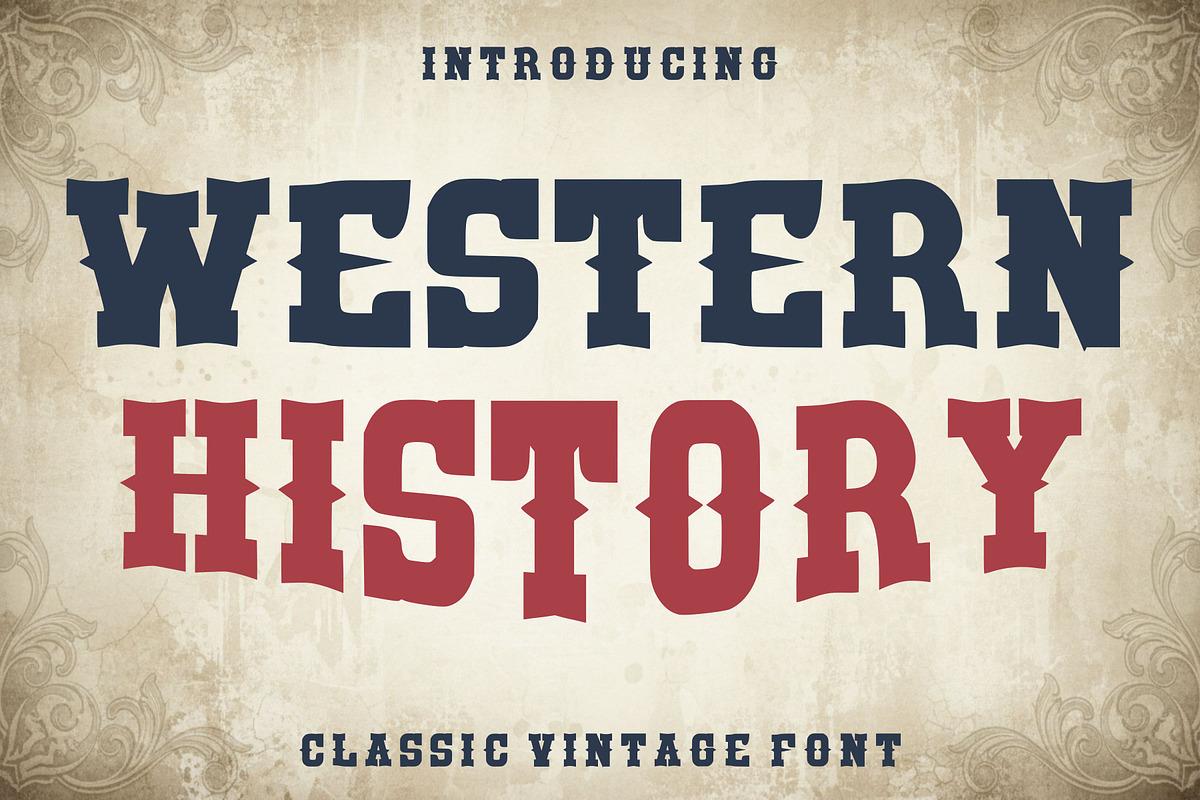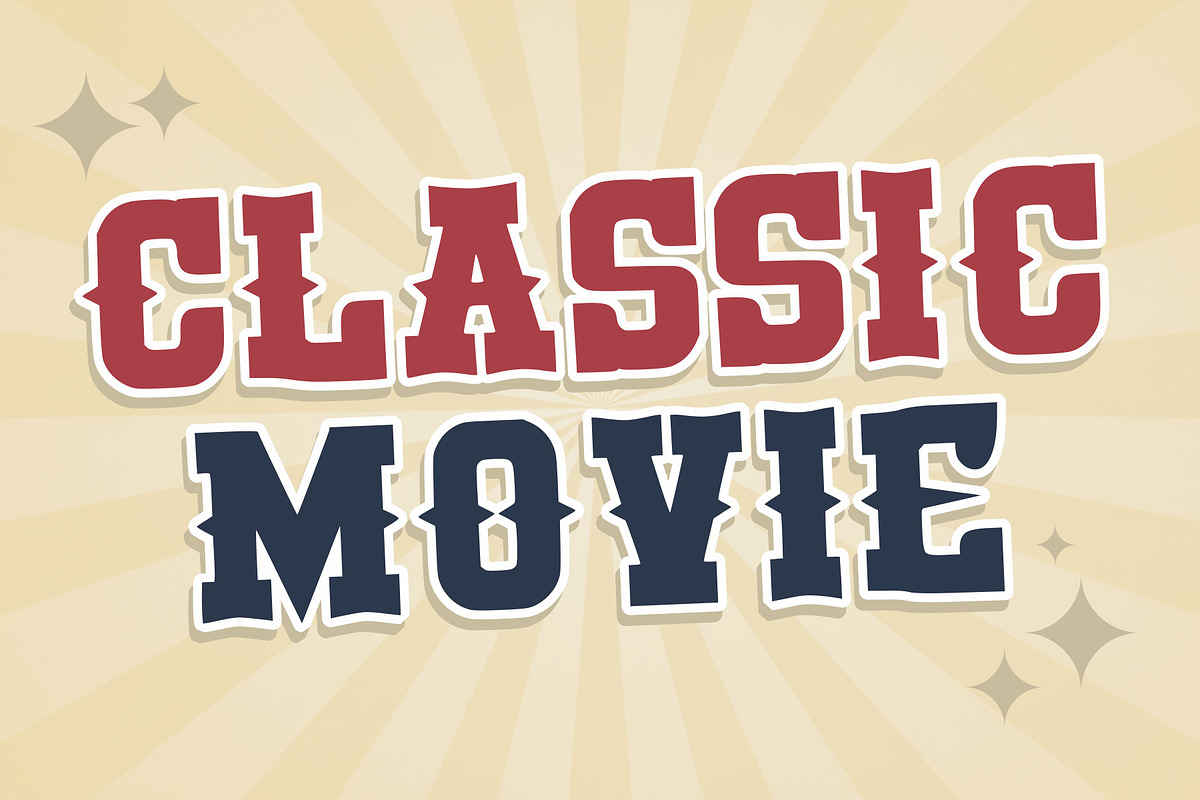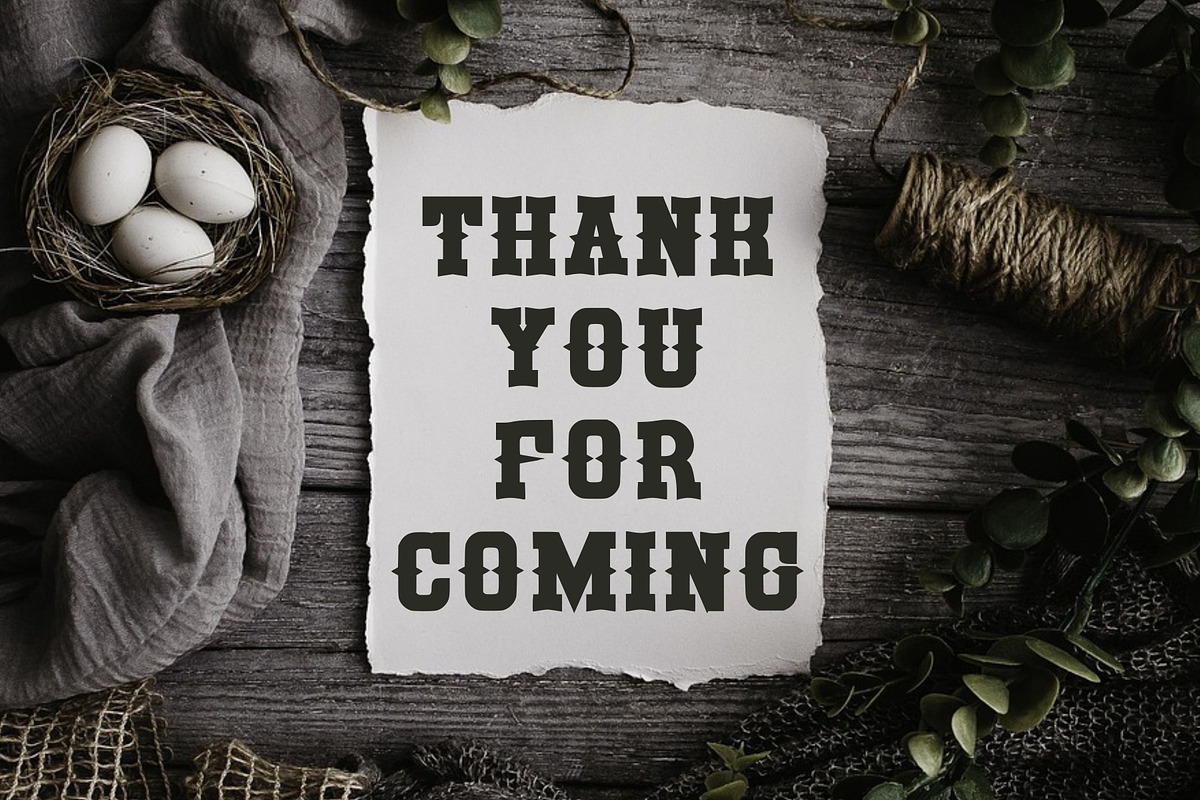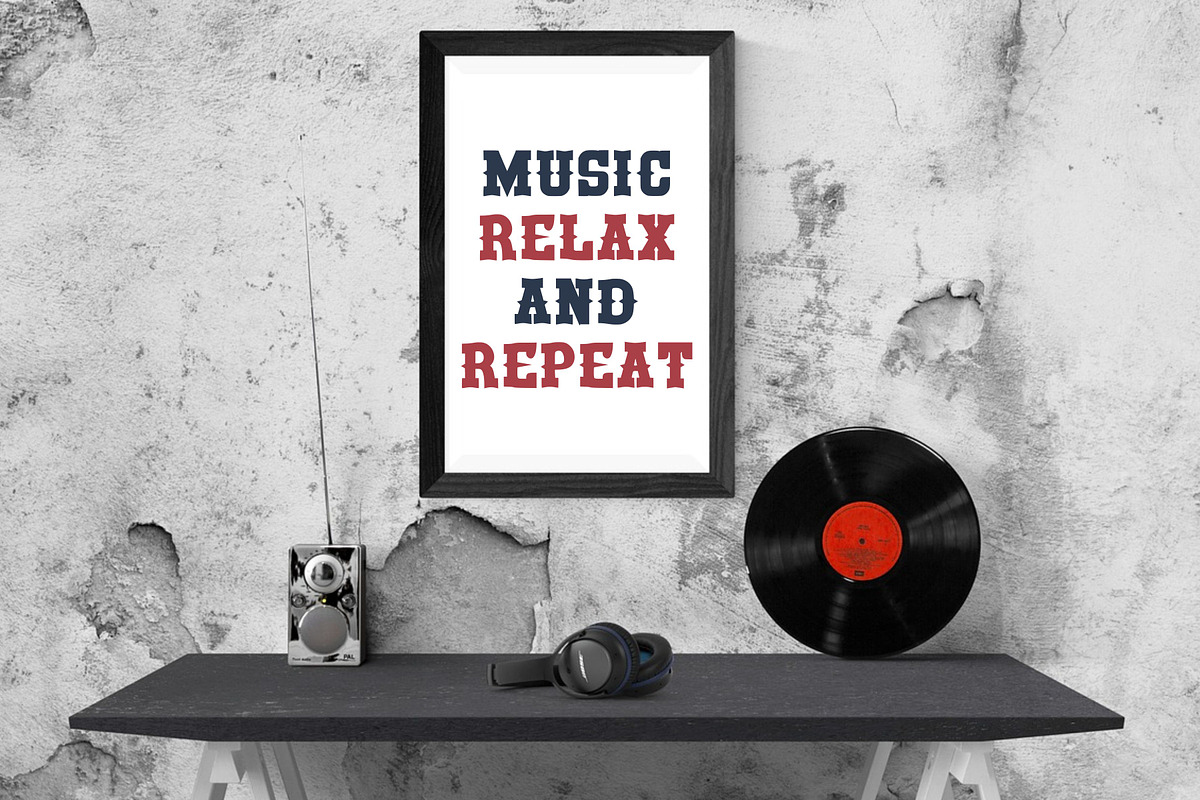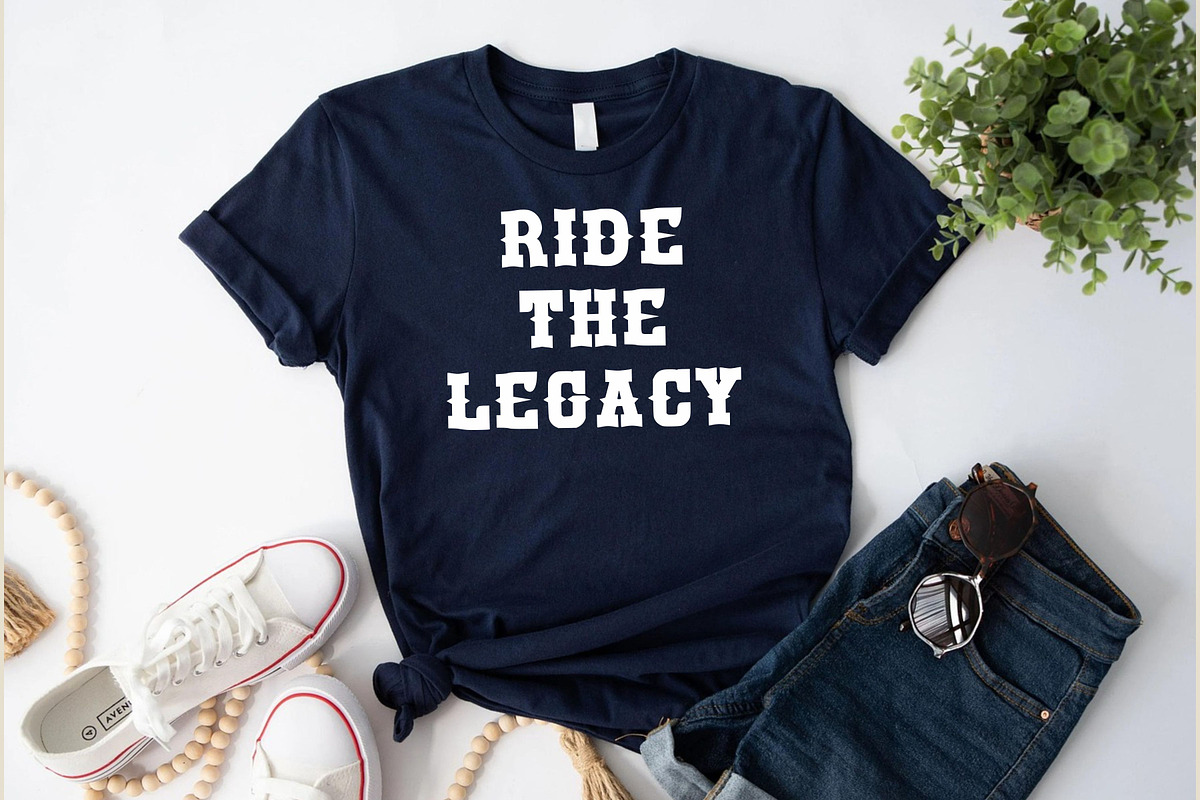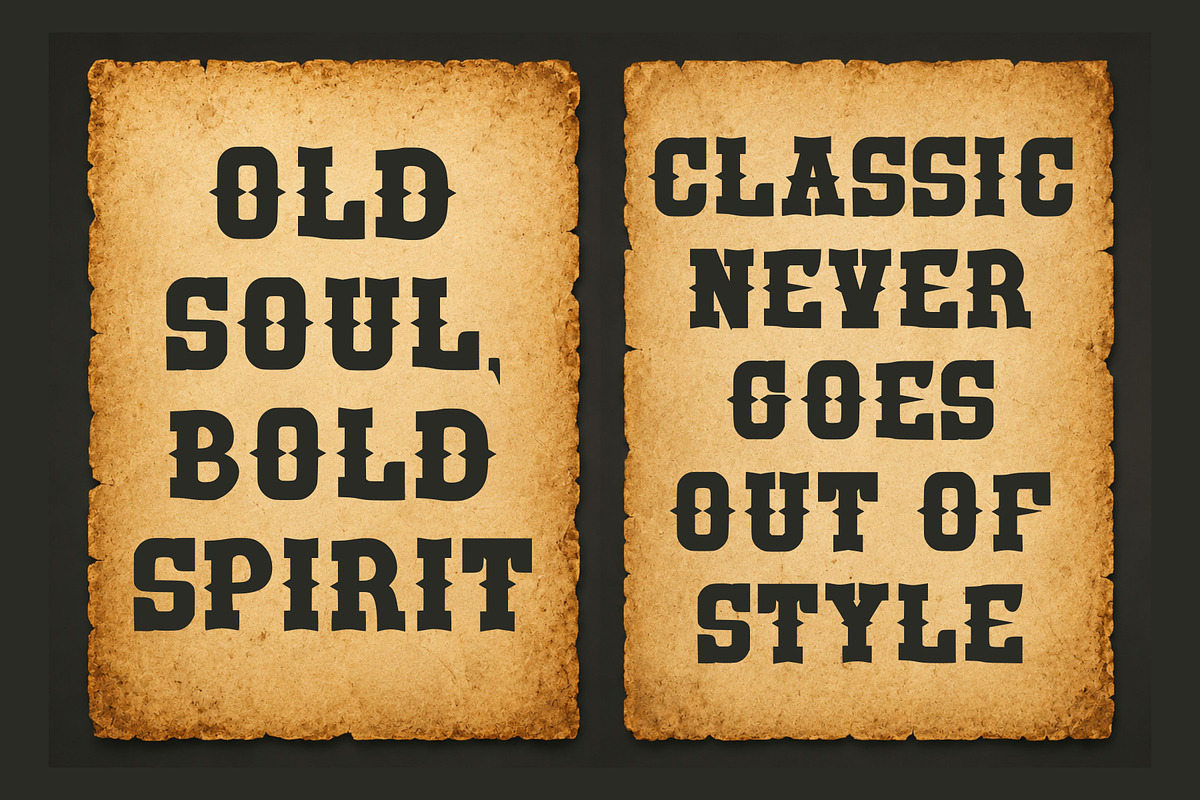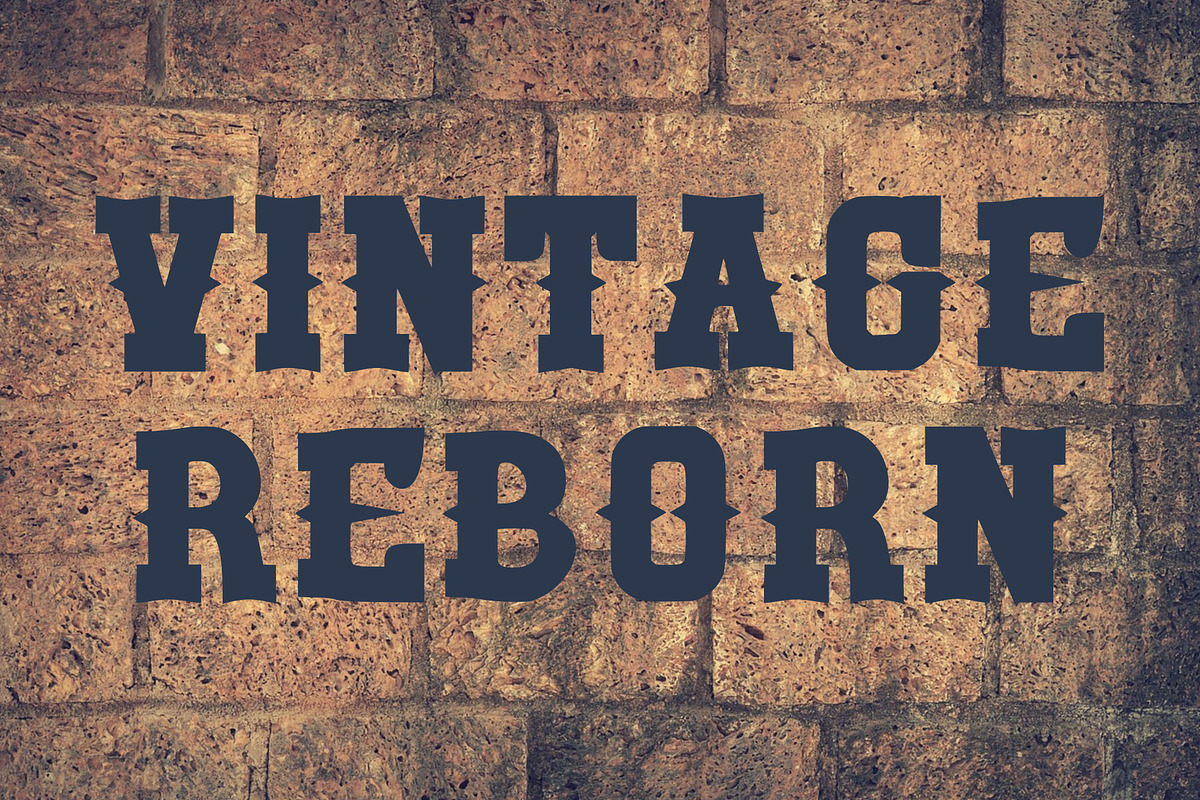
Western History
Western History is a bold vintage western display font inspired by classic cowboy posters, saloon signage, and old Wild West typography. Featuring strong serif details and authentic retro character shapes, this font is perfect for western-themed branding, logos, posters, apparel, packaging, Cricut projects, invitations, and vintage designs. Add a rustic cowboy touch to your creative projects with this timeless western typeface.